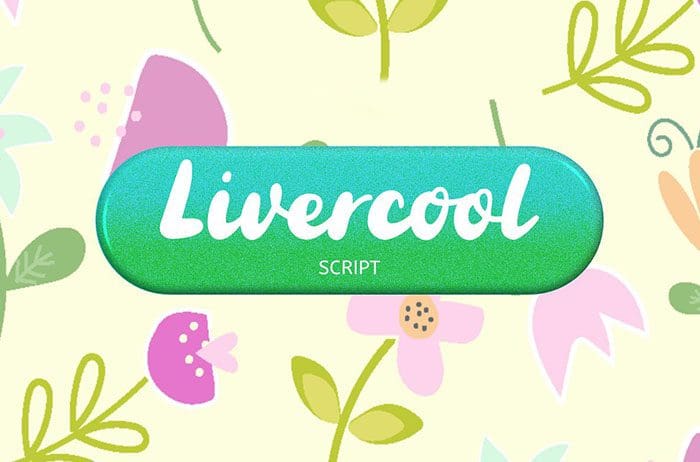
Free Livercool script font playful and cute, but also authentic. This versatile script font has a wide range applications ranging from DIY projects to body text and is guaranteed to add romantic touch to your next design. This font is available only for personal use. Created this font by Epiclinez. More free Fonts. Thanks!
Designed By : Epiclinez